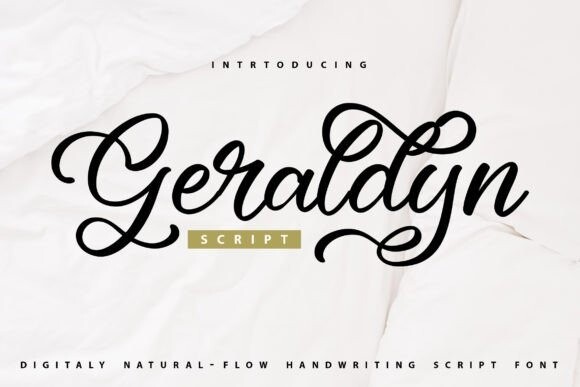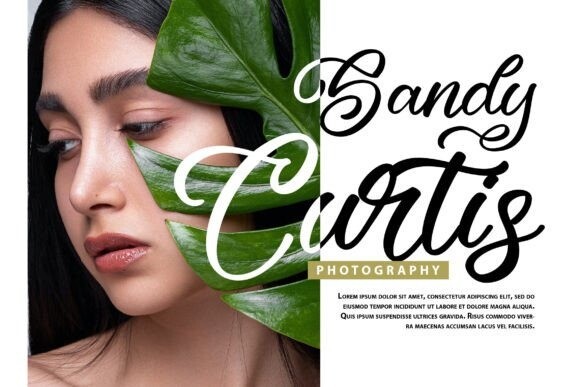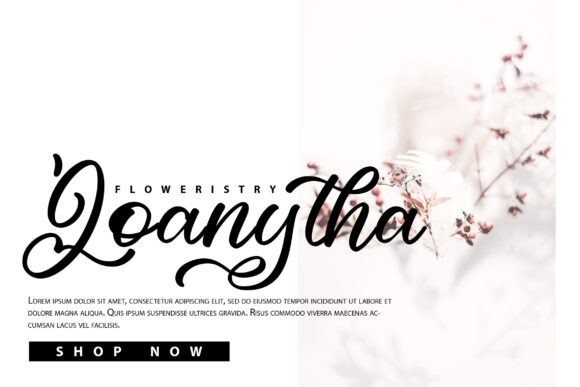
Geraldyn Font
Geraldyn is a digitally handwritten script font with a calligraphy style. It will look so beautiful on invitations like greeting cards, branding materials, business cards, quotes, posters, and more!